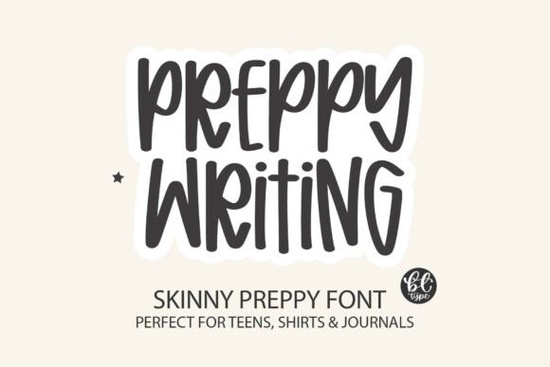
If you're looking for a handwritten font that feels both playful and put-together something that reads clearly on a tiny sticker or fills a t-shirt design with personality Preppy Writing Font fits right in. It’s not overly cursive or hard to read, and it doesn’t try too hard to be “cute.” Instead, it balances bubbly energy with clean structure: tall letters, consistent spacing, and subtle prep-school charm that lands well with teens and young adults but still works for teachers, small studios, and lifestyle brands.
When does Preppy Writing Font work best?
This font shines where legibility and personality need to coexist. Think journal headers that invite writing instead of intimidating it, planner page titles that feel intentional but not stiff, or school merch that students actually want to wear. Because the letters are tall and evenly spaced, it holds up well at small sizes unlike some script fonts that blur together below 16pt. You’ll also find it useful for quote graphics, Instagram story text overlays, and product labels where tone matters as much as clarity.
It’s especially handy if you’re designing for education-adjacent niches: classroom posters, study planners, tutoring business branding, or even printable back-to-school bundles. The vibe is confident without being loud, friendly without feeling childish. That makes it easier to pair with sans-serif or geometric typefaces for contrast or layer with simple line art and pastel palettes.
How does it compare to other popular script fonts?
Unlike Masterline Calligraphy Font, which leans into elegant flourishes and formal invitations, Preppy Writing Font keeps things light and approachable. It’s less about calligraphic tradition and more about modern handwriting energy similar in spirit to Le Mores Signature Font, but with tighter spacing and a more youthful rhythm.
Compared to Wednesday Font, which has a looser, almost doodle-like flow, Preppy Writing Font feels more deliberate great when you need consistency across multiple designs. And while Amibas Font offers rounded friendliness, Preppy Writing Font adds just enough structure to keep things polished for professional use.
Even compared to something as iconic as Mickey Mouse Font, this one avoids cartoon exaggeration. It’s not themed it’s versatile. That means you can use it for digital branding, printables, or physical products without worrying about it feeling out of place.
What kinds of projects get stronger with this font?
- T-shirts and tote bags especially for school clubs, study groups, or teen-focused apparel lines
- Digital planners and printable journals headers, section dividers, and motivational quotes stay readable on tablets and phones
- Sticker sheets and vinyl cut files clean outlines mean smoother cutting and better results on Cricut or Silhouette machines
- Social media templates works well over photos or solid-color backgrounds without needing heavy outlines or shadows
- Educational printables flashcards, vocabulary lists, and classroom signs benefit from its clarity and warmth
One thing to keep in mind: because it’s a single-weight, all-caps-friendly script (with lowercase alternates included), it’s not meant for long paragraphs. Use it where impact matters not for body text. Pair it with a neutral sans-serif like Montserrat or Poppins for balance, or let it stand alone on minimalist layouts.
If you’ve been searching for a handwritten font that feels fresh but not fussy, confident but not cold, Preppy Writing Font is worth trying next. It’s the kind of typeface that quietly strengthens your design choices without demanding attention just for being different.